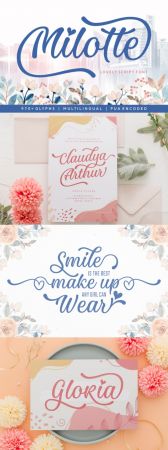
Milotte is a gorgeous and sophisticated handwritten font. It features an incredibly classic style, while still keeping a friendly feel. Milotte is the perfect font for making original and outstanding designs.
This font is PUA encoded which means you can access all of the cute glyphs and swashes with ease! It also features a wealth of special features including alternate glyphs and ligatures.